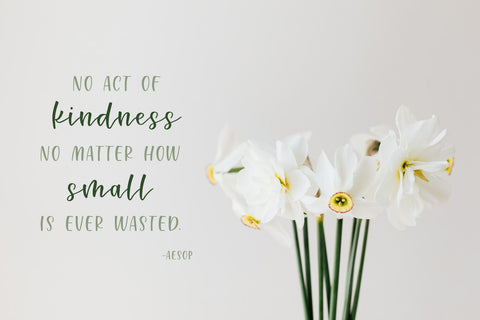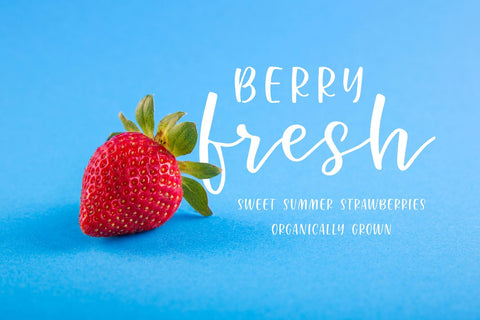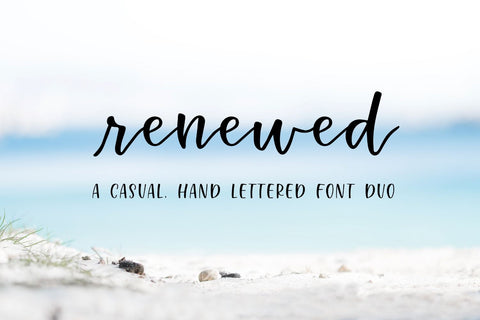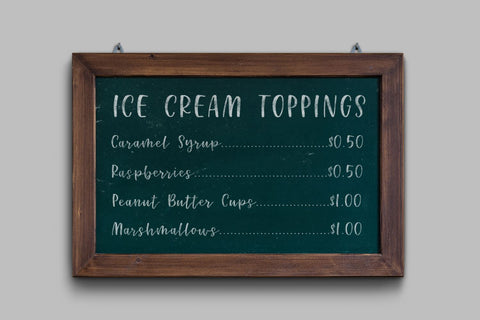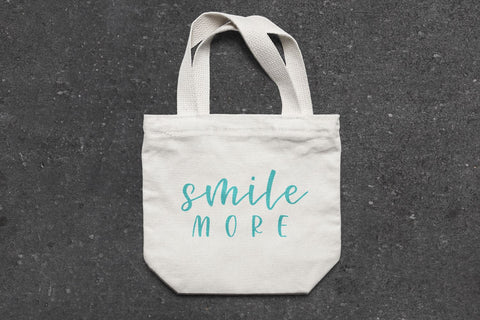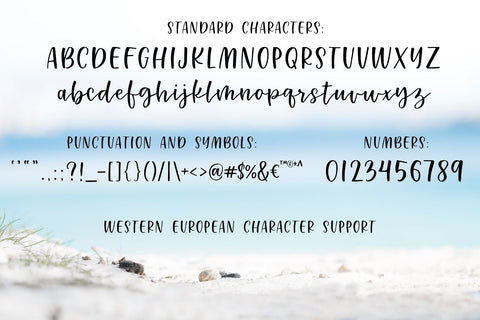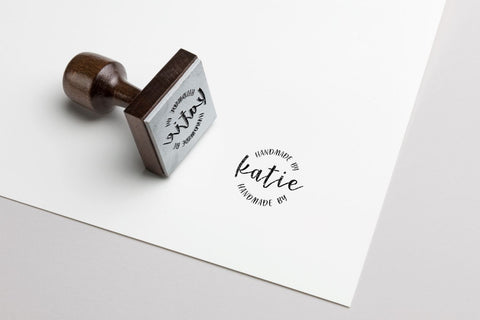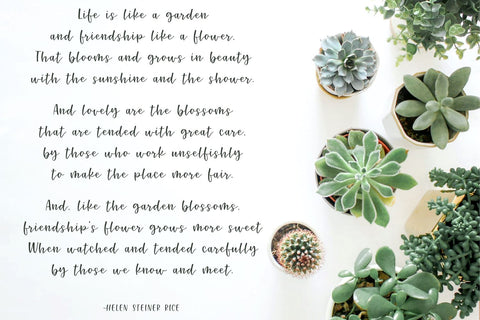
Renewed | Hand Lettered Font Duo
Renewed is a casual, hand-lettered font duo with a script lowercase alphabet and a sans-serif uppercase alphabet. It's perfect for adding a casual, hand-lettered look to your designs. Both letter styles can be used on their own or paired together!
Renewed Font Features:
- Uppercase sans-serif style
- Lowercase script style
- Initial "r" character
- Multilingual support for Western European languages